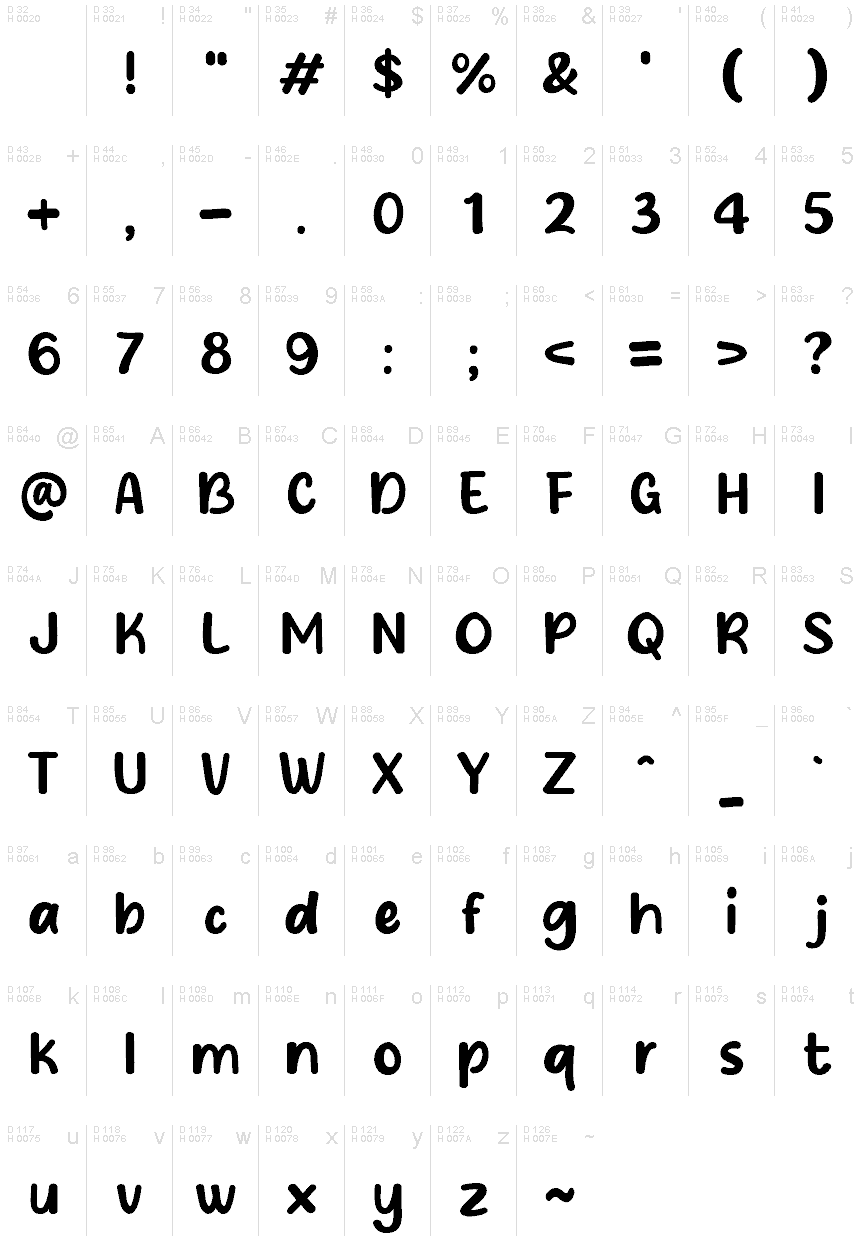
Space Rice
Space Rice font by MJType is a dynamic handwritten typeface that exudes modern charm and energetic flair. With bold styling and expressive lines, it carries a friendly tone that perfectly balances casual elegance with contemporary vibes. This free handwritten font is crafted to grab attention while maintaining an unmistakable personal touch.
This distinctive font can elevate various design projects including social media posts, branding, labels, book covers, online courses content, greeting cards, invitations, posters, or journals. Use it to create enchanting restaurant menus or attractive advertisements for the desired impact!